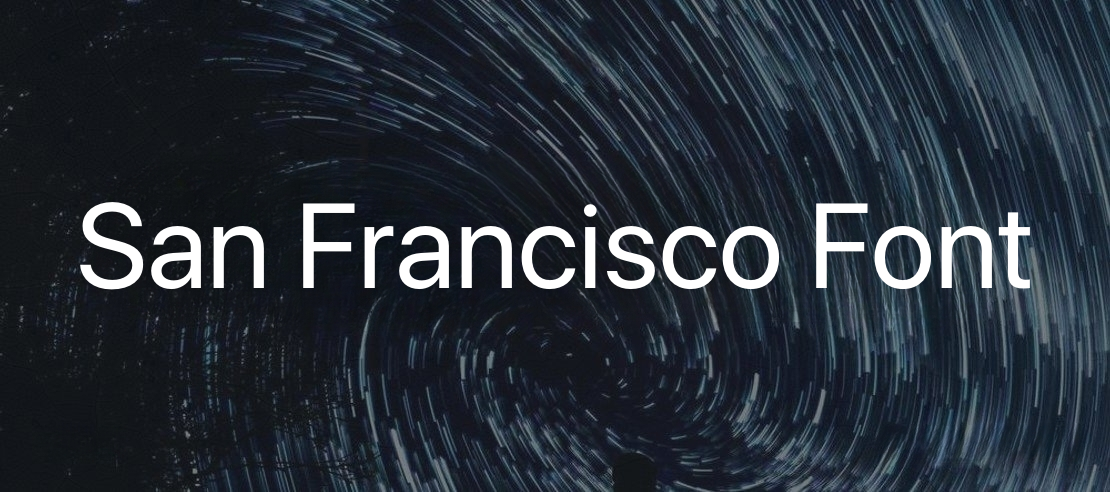
San Francisco Font is a category of the Sans-Serif Typeface font family. This typeface has the most elegant and texture appearance. The design of two well-known types, Helvetica Font and Din Condensed Font inspired this font texture.
This font style has its own family of fonts. Each style includes both uppercase and lowercase alphabets, as well as numbers and symbols, allowing this textured design to be used in a variety of ways.
This textured style is used in Apple Watch software and as texture content in Safari, Apple’s web browser. This font style is also included in the IOS 11 release.
SF Pro, a new improved version of this well-known font with new and fantastic glyphs for a variety of languages, was also released. Since its release, this design has grown in popularity and has replaced several font styles due to its exquisite appearance.
This textured design has taken the place of Apple’s gotham-narrow font on their websites and devices. This font design has sleek and beautiful font lines that give it a respectable and executive appearance.
As a result, numerous designers are incorporating this typeface into their creative and executive projects. This font is ideal for making personal cards, and the texture is ideal for official documentation. This typeface can also be used to generate certificates.
Designer of San Francisco Font
This well-known and amazing typeface was created on November 18, 2014, by one of the most well-known foundries in the world, Apple Inc. This is the first time in twenty years that Apple has designed a typeface.
This typeface texture is made up of a family of its own. Each style in this family includes capital letters, tiny letters, glyphs, punctuations, numbers, symbols, and special characters, as well as support for a wide range of languages. These styles are as follows: –
View of San Francisco Font
| Name | San Francisco Font |
| Designer | Antonio Cavedoni |
| Foundry | Apple Inc |
It can support up to 84 languages.
What type of font is the San Francisco font?
This font has a clean and elegant texture appearance that is the type of Sans-Serif font family and it is designed by Apple Inc.
What font is closest to San Francisco Font?
The feel of some of the typographies is incredibly similar to that of this typeface. On the other hand, the blogger sans font is remarkably similar to this font. This typeface can be used as an alternative to the Fabrica Font style.